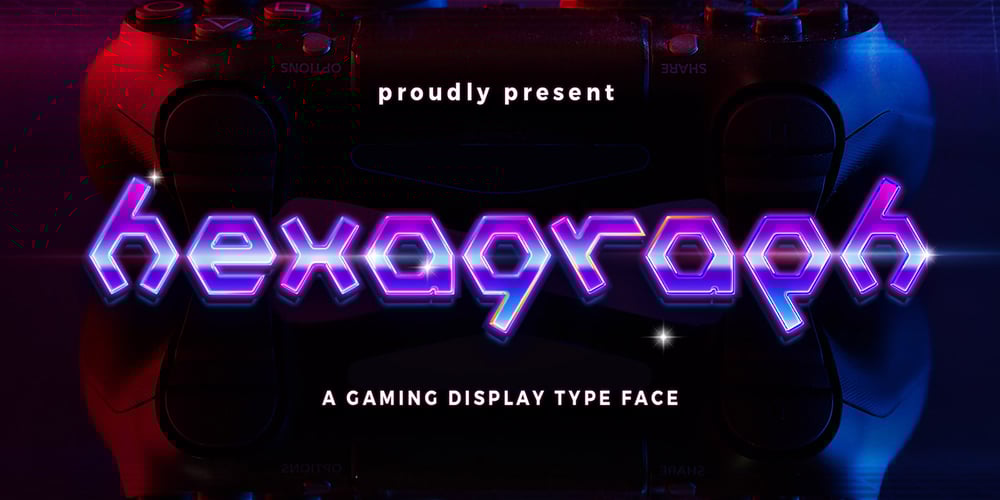
Hexagraph
Hexagraph font
Hexagraph Font Family was designed by Ridwan Taufik Kurniawan and published by Red One Graph. Hexagraph contains 6 styles and family package options. Thanks for checking out Hexagraph Font! This is my first font and type face in foundry world. Hexagraph inspired by geometrical form of hexagon shape, produces a series of letters that have a sci-fi – technological impression. This font is very unique in that it is entirely an extension of the hexagon shape.You can use this font for magazine cover, game support graphic elements, tech product advertisements, or whatever.